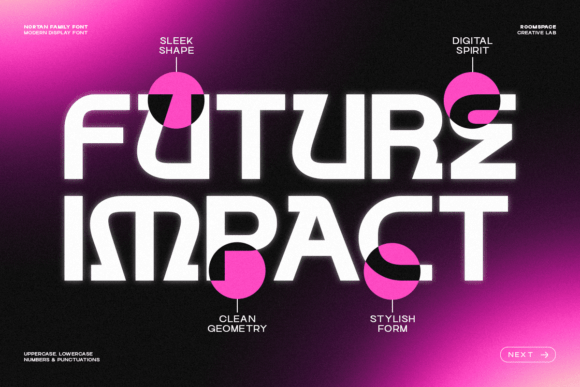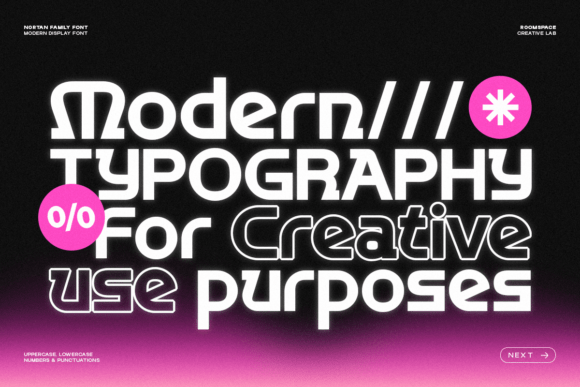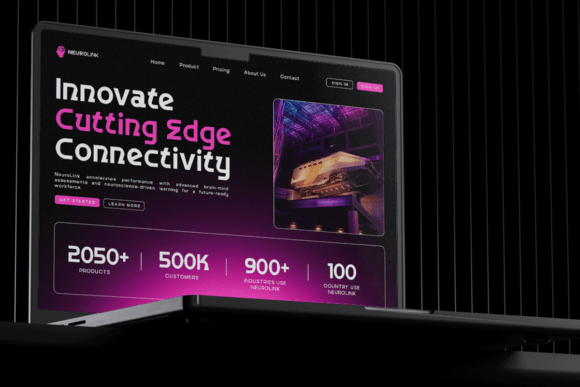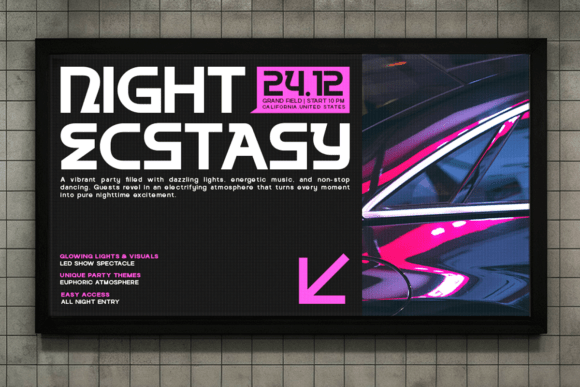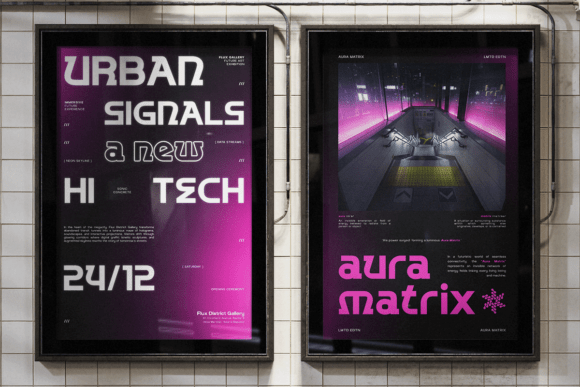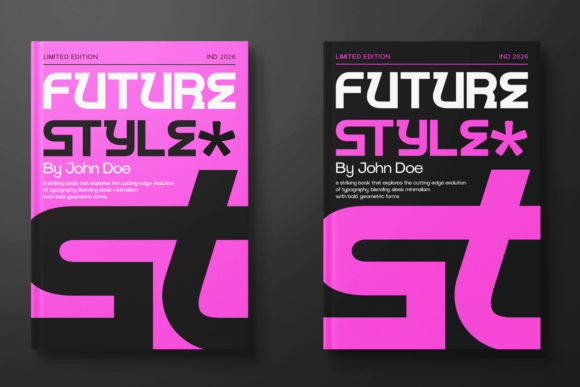
Introduction to Nortan Font
Nortan is a sleek, bold display sans-serif font that embodies a futuristic and ultra-modern aesthetic, perfect for cutting-edge design.
This typeface is characterized by its slightly rounded, geometric forms and unique glyphs, including extensive ligatures and multilingual support, ensuring global design versatility The Nortan font makes a strong statement with its heavy weight and structured appearance, ideal the technology and gaming industries.